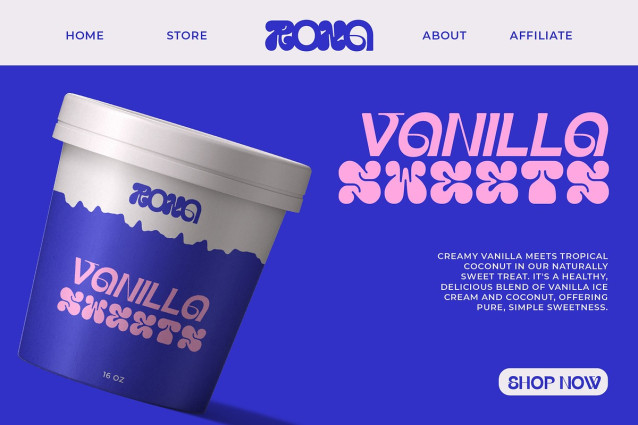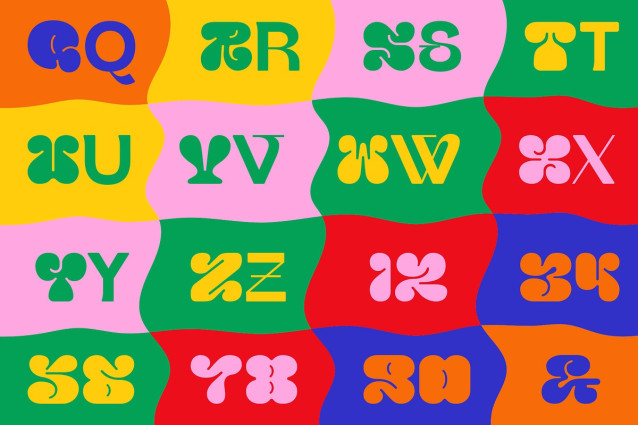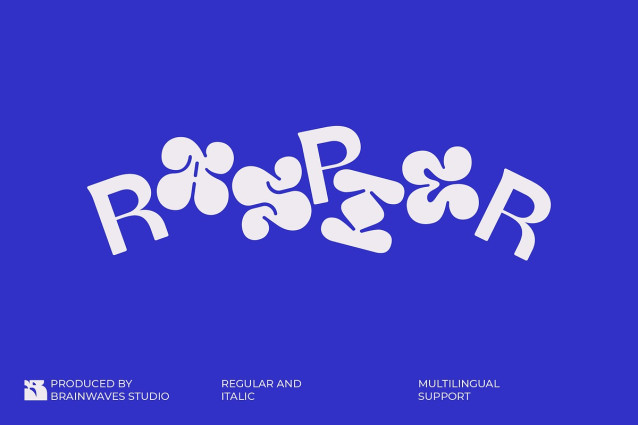
Raspier Font
Raspier Font, a wildly unique mixed display font! This isn’t your average typeface—it’s a groovy, psychedelic journey with abstract, liquid-like letterforms that instantly inject fun and retro vibes into your designs.
Imagine your headlines melting into a funky, unforgettable work of art. Raspier is a showstopper, perfect for brands that want to feel nostalgic, youthful, and full of energy. Its bold, thick strokes and organic shapes are designed for maximum visual impact, making it impossible to ignore.
This font is more than just a throwback; it’s a modern tool for creators. It includes multiple unique glyphs for each letter, so you can mix and match to create truly custom layouts.